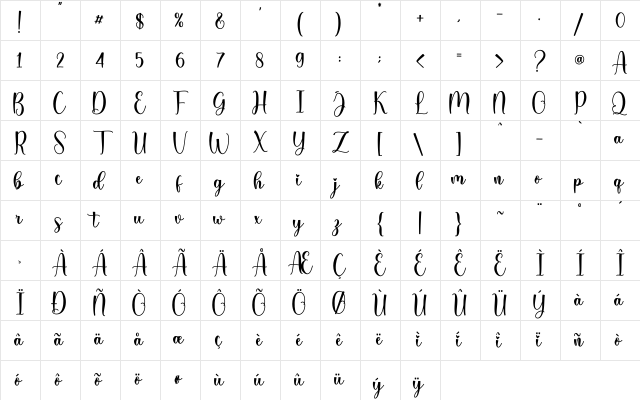
Sayloves_DEMO Regular Free Font
Sayloves_DEMO Regular
Complete Sayloves_DEMO Regular glyph index. Displaying only characters natively supported by Sayloves_DEMO Regular font.
Design Context for Sayloves_DEMO
Sayloves_DEMO is a composed and adaptable typeface that performs quietly and consistently across a wide range of design contexts.